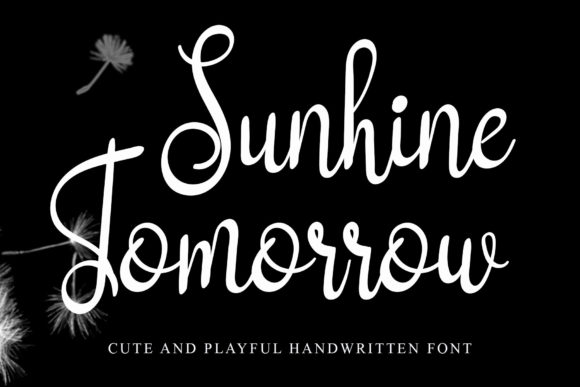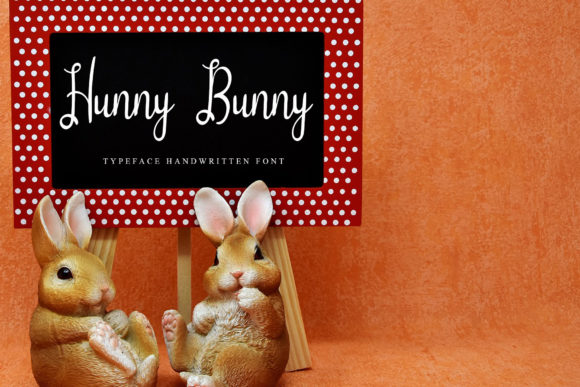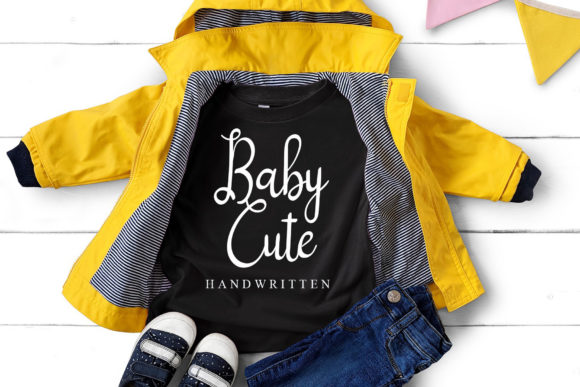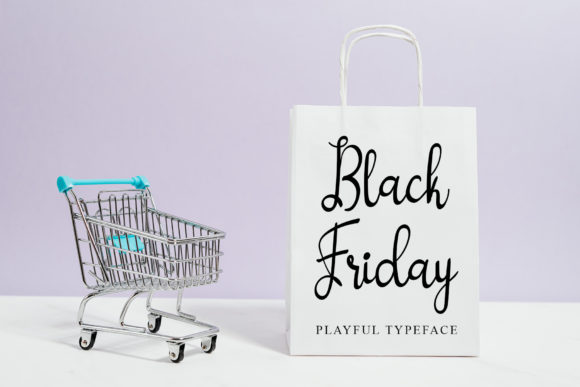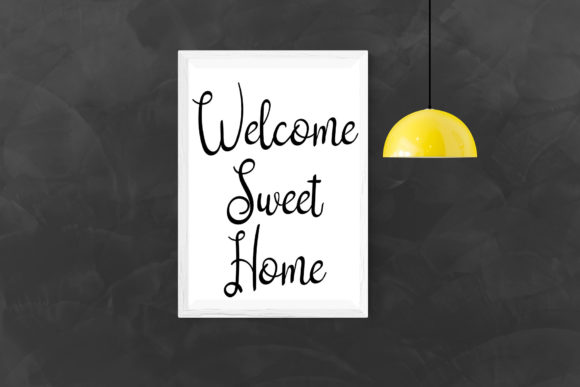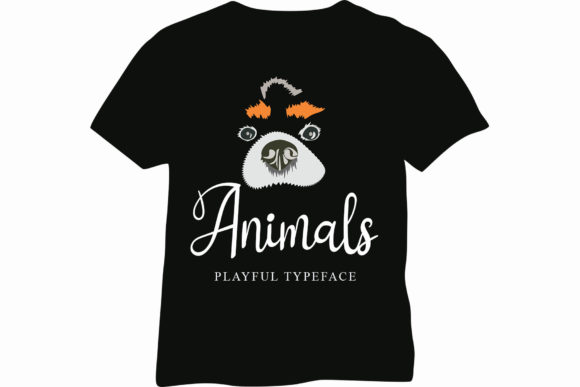
Sunhine Tomorrow Font
About Sunhine Tomorrow Font
Sunhine Tomorrow is a lovely and delicate script font that exudes elegance and class. This font was particularly crafted for those who need a beautiful and refreshing look to their designs.